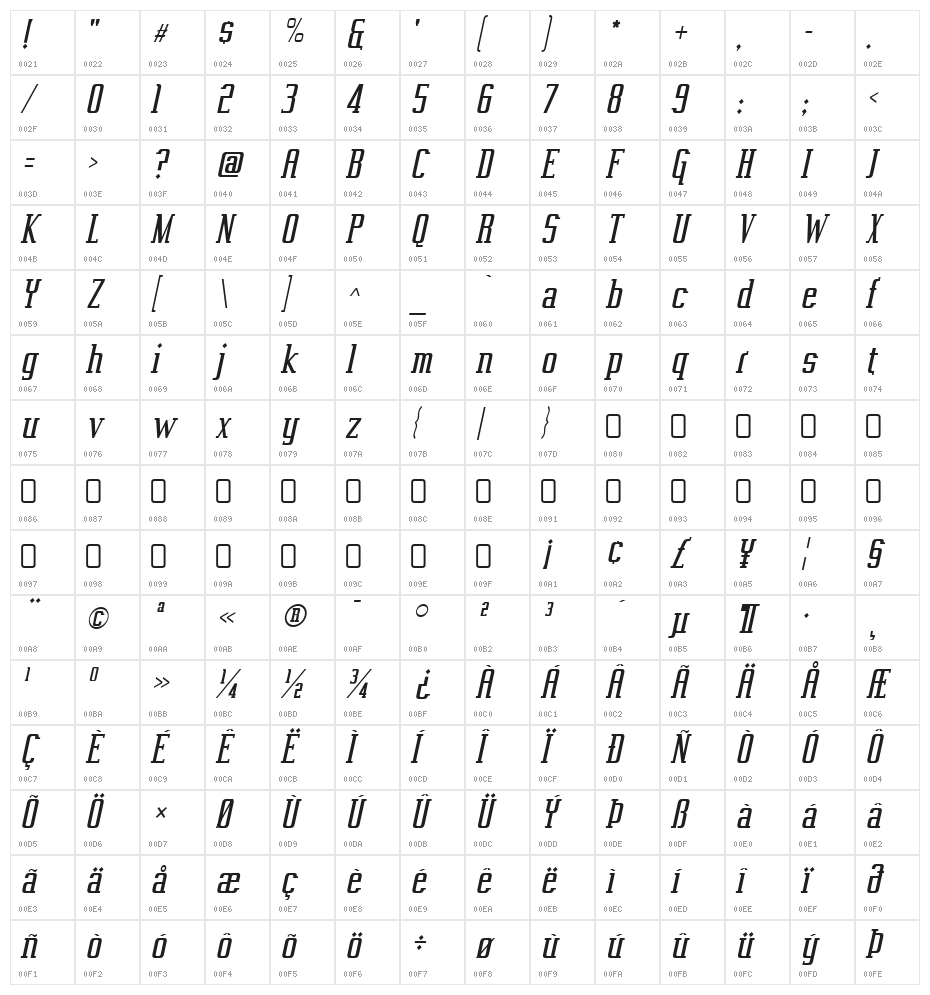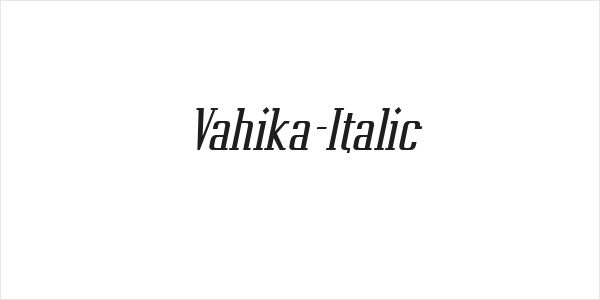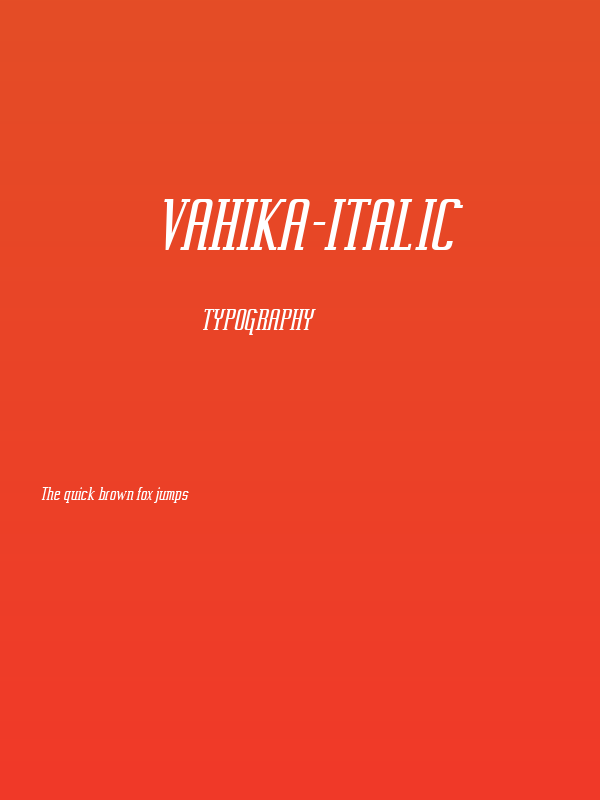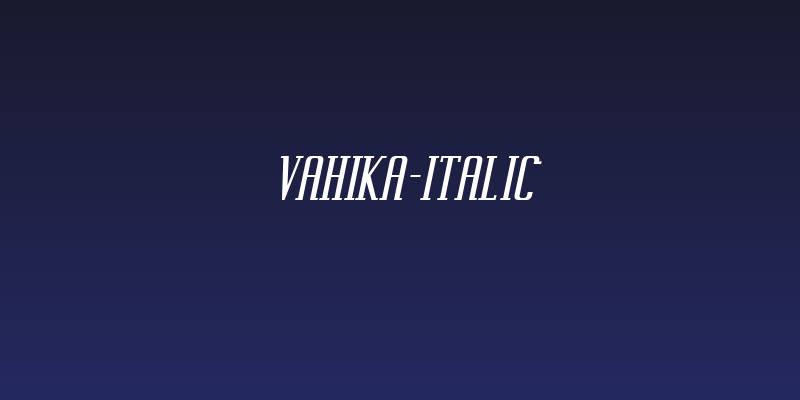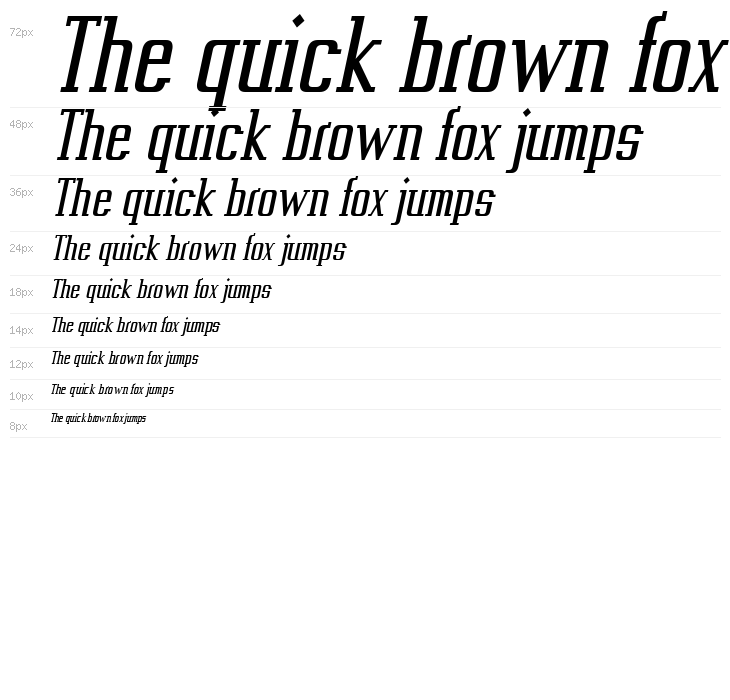
Vahika-Italic Font
Vahika-Italic Description
This font features a dynamic and modern italic style with a distinct slant, giving it a sense of motion and energy. The characters are elongated with a slight condensation, creating a sleek and streamlined appearance. The uppercase letters are bold and commanding, while the lowercase letters maintain a consistent flow. Numbers are clear and legible, matching the overall style. Special characters are well-integrated, maintaining the font's cohesive look. The font's design is suitable for projects that require a contemporary and energetic feel.
| Proposed Projects | Ideal for sports branding, dynamic posters, modern advertisements, and digital media. |